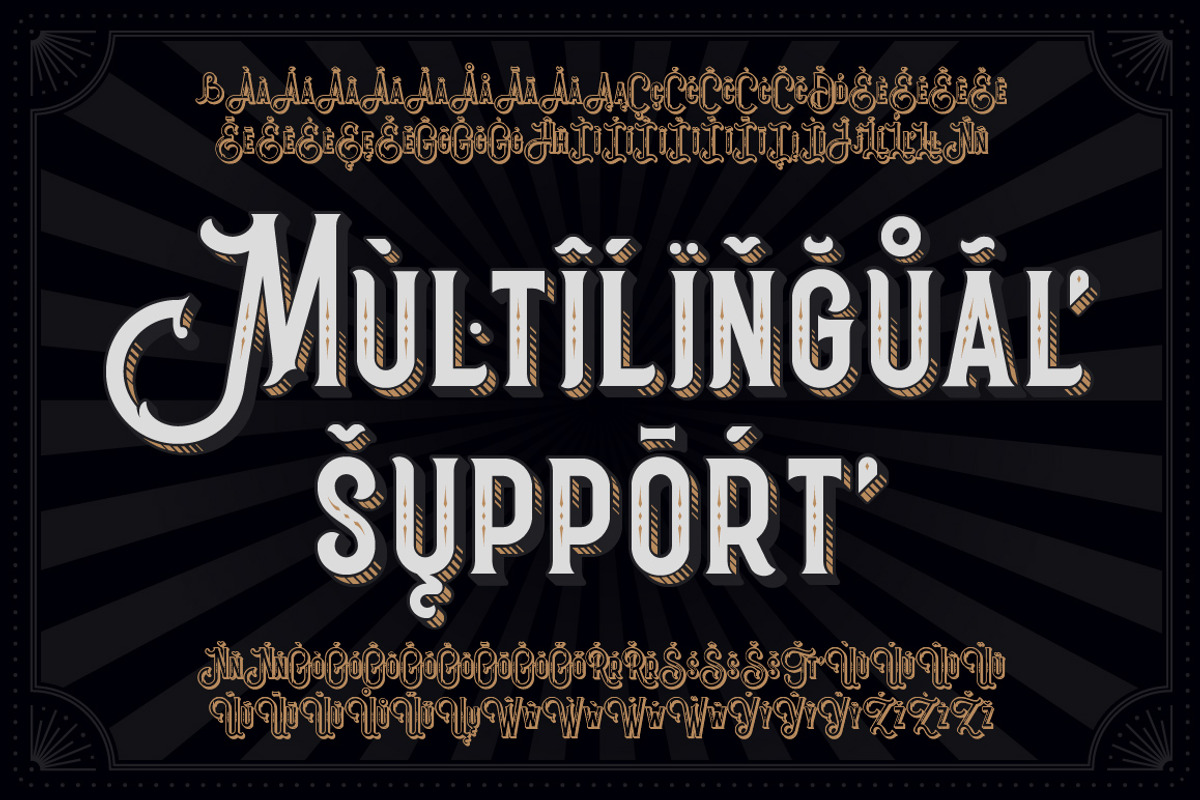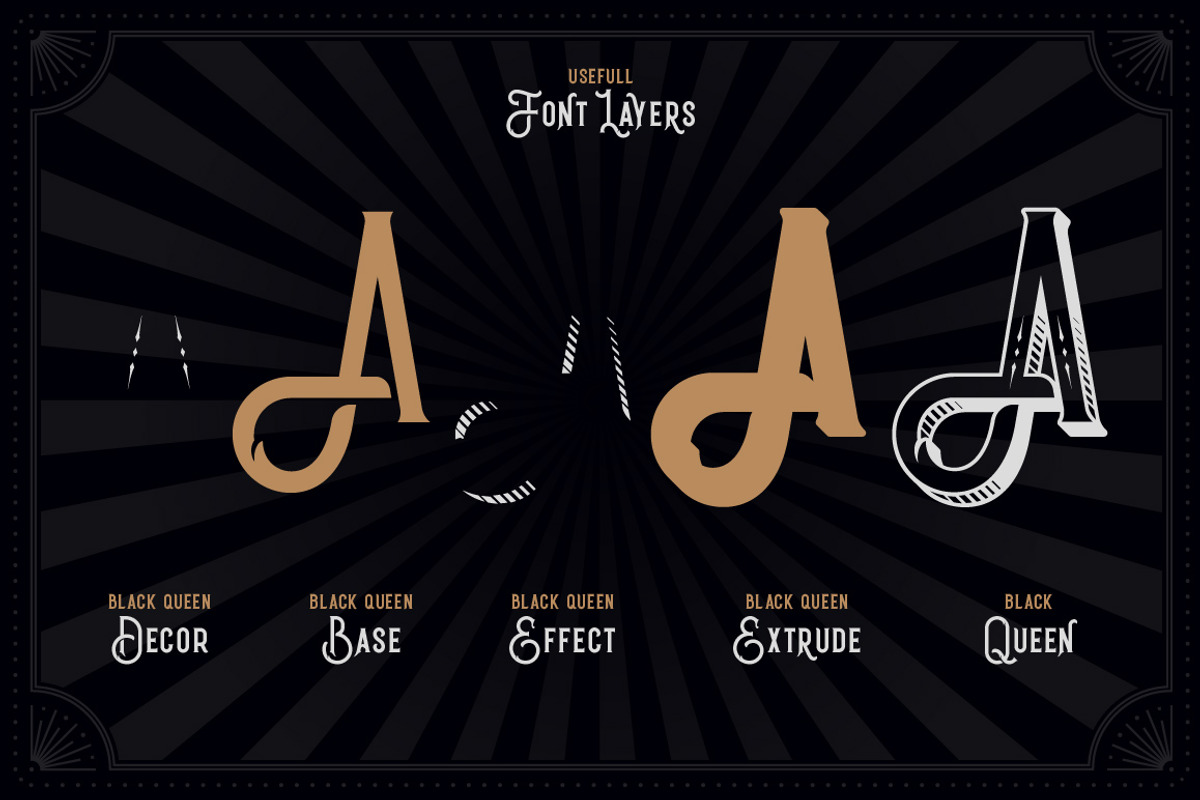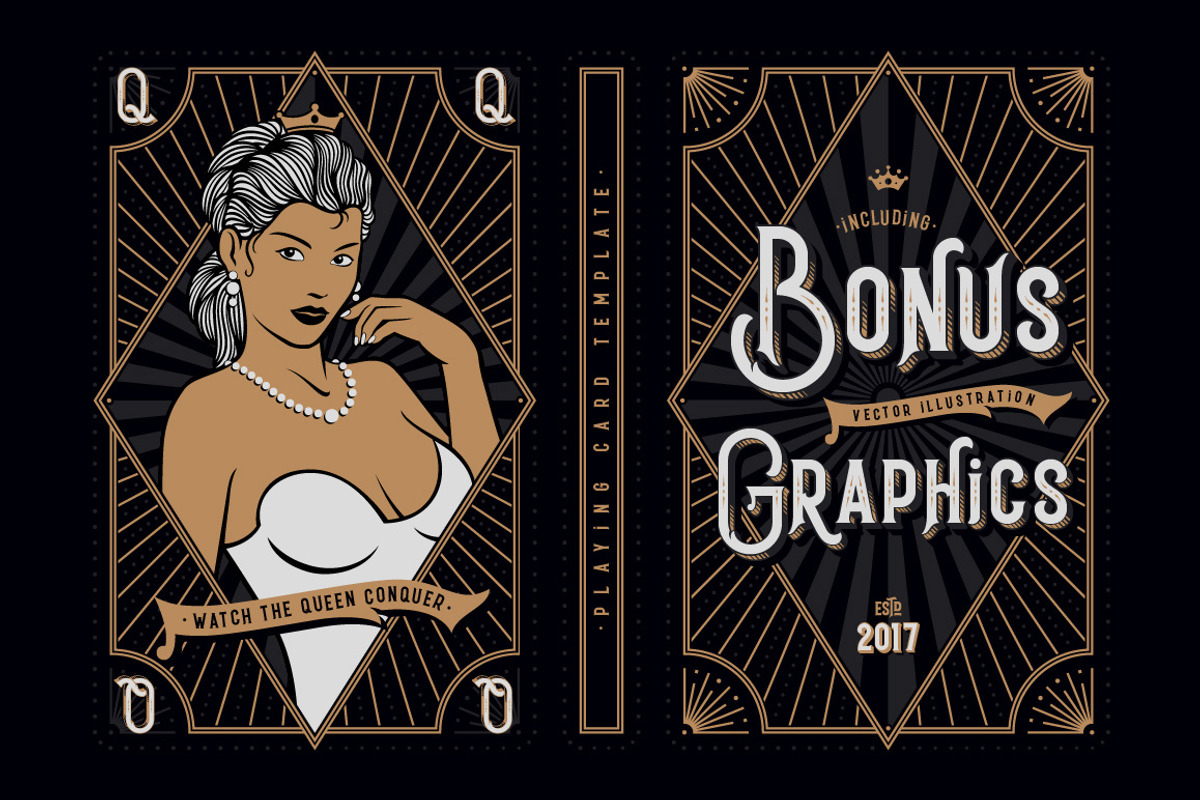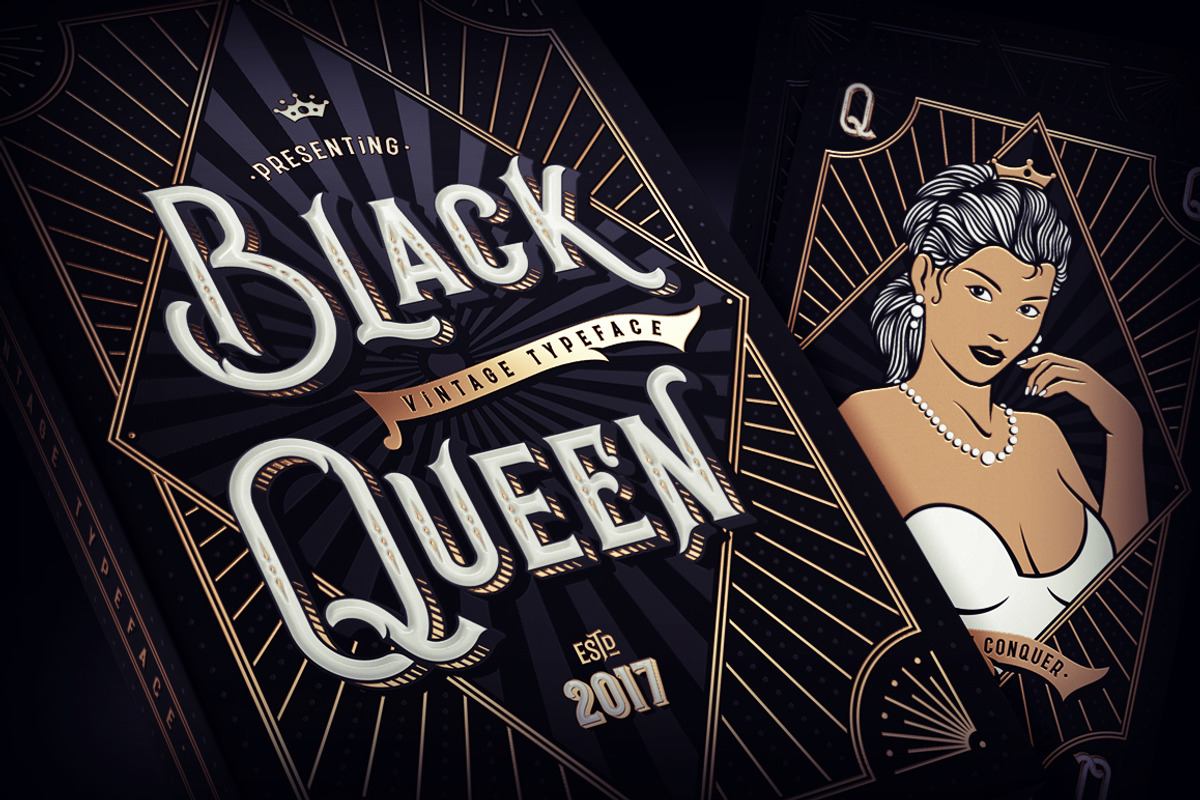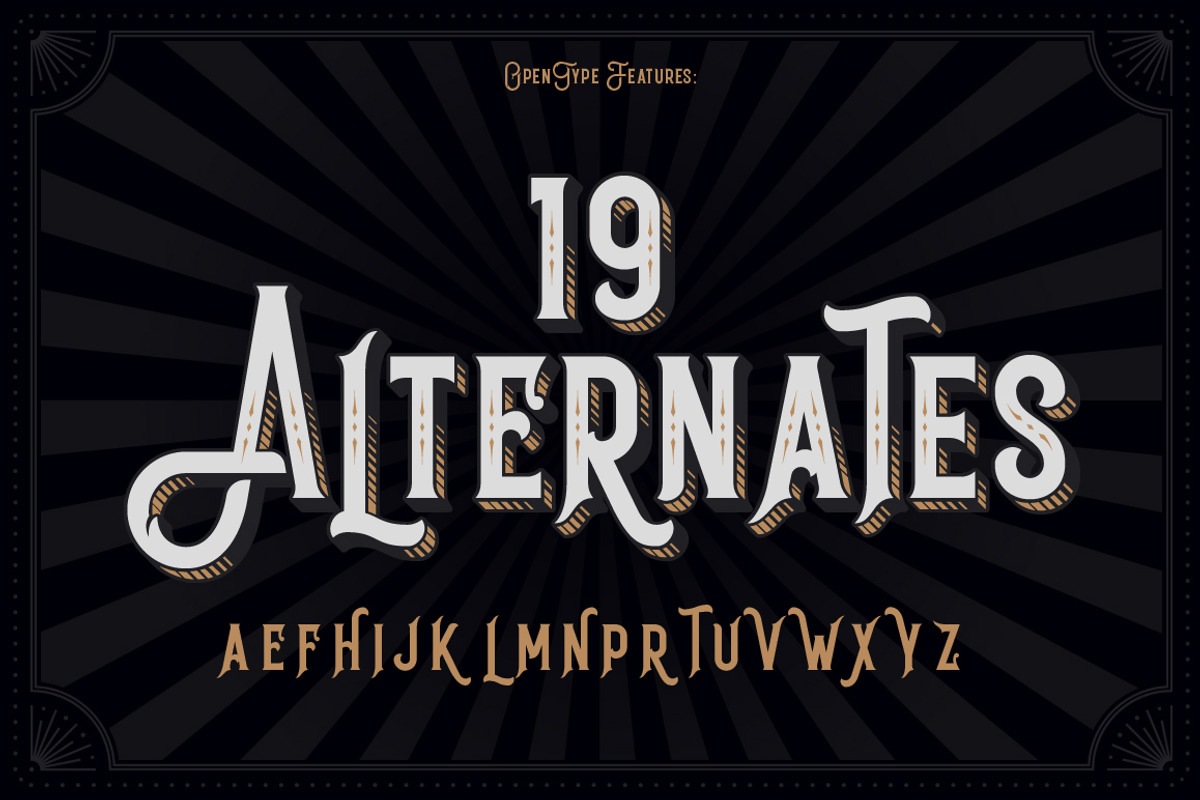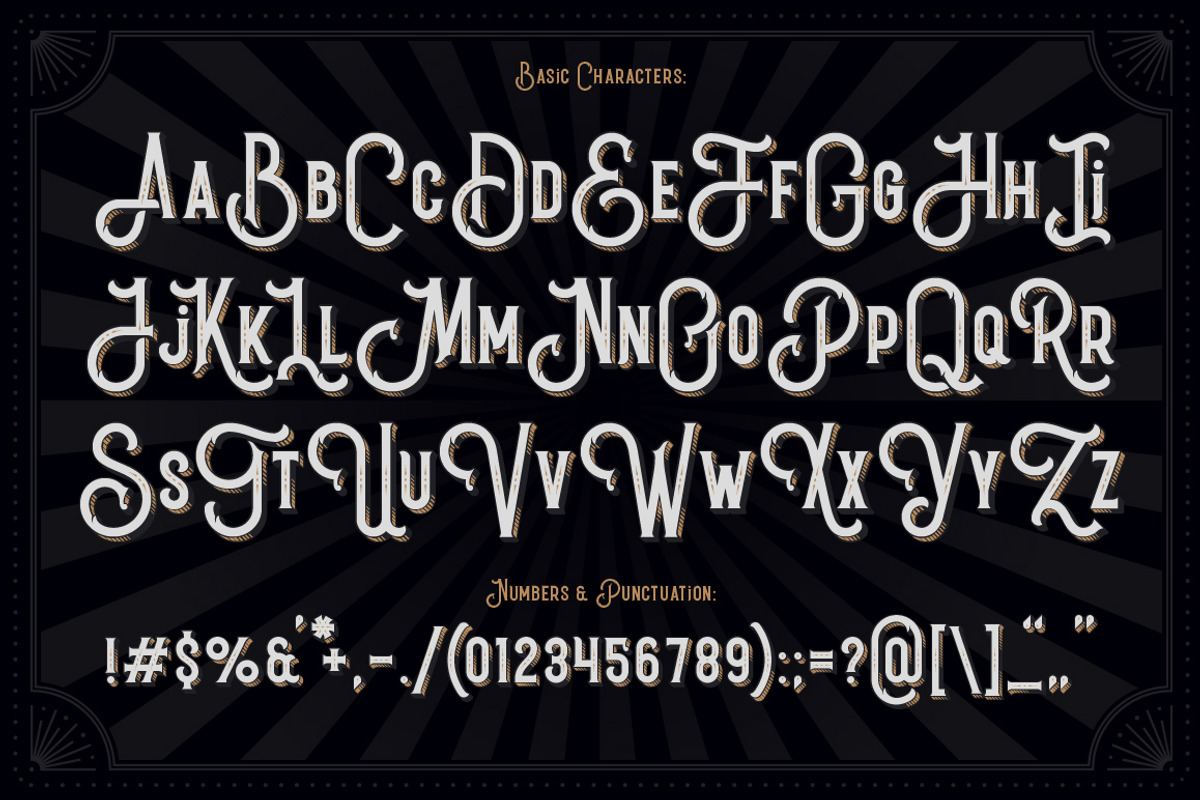
Black Queen font + bonus graphics
Hi! Presenting vintage style typeface "Black Queen". It includes different font files for each decorative element, that can be useful for manipulating with colors and effects. Black Queen font has multilingual support and several laternative letter glyphs (all characters you can see on 4-6th screenshots). Also as a bonus you will get a vector illustration of a queen and a label template (3rd screenshot).